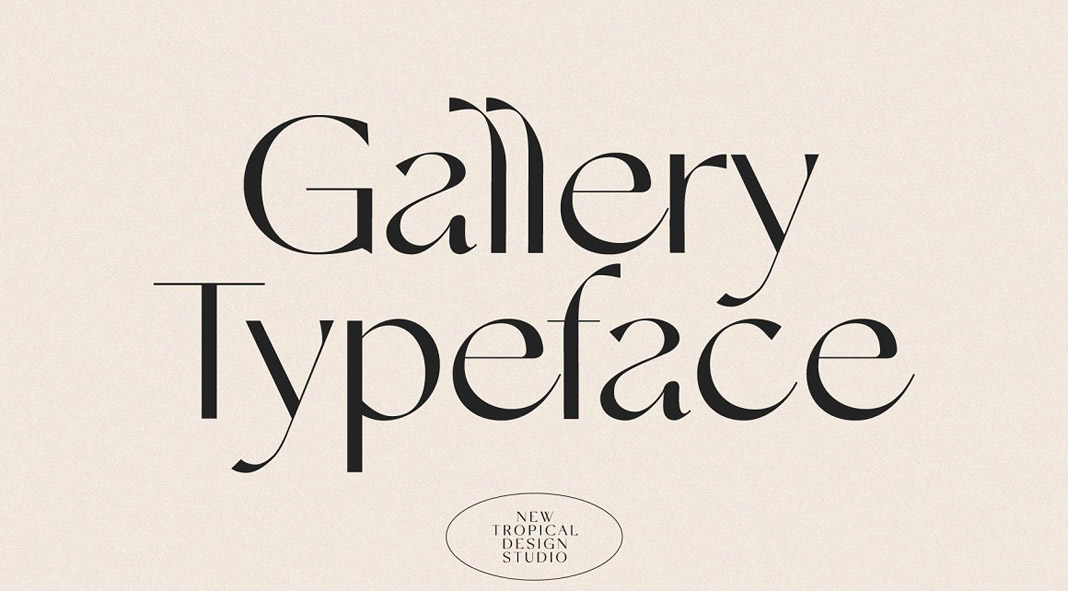
Gallery, a modern yet vintage-inspired typeface from New Tropical Design.
Gallery is a new multilingual typeface that combines a modern, playful touch with certain vintage characteristics. With its smooth curves, it has been designed for use as a display font for stylish headlines and short text sections. The design of the Gallery font is a mix between a classic serif and a modern sans-serif, which results in a unique feel. It is equipped with upper and lowercase letters as well as numbers and punctuation. This playful and elegant font is a great choice for fashion-related branding projects or editorial designs. To learn more, just click on the following link or have a look at the images below.